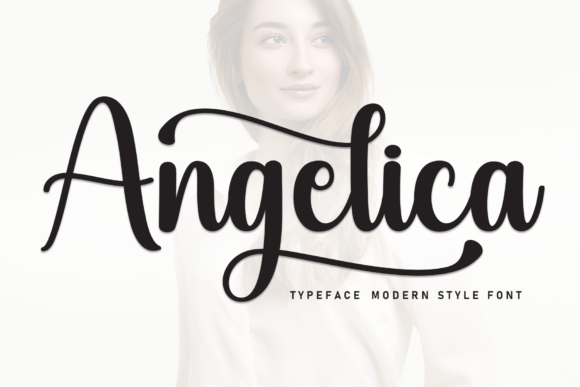
Introducing Angelica Font, the miraculous script font that will captivate your designs with its disarming charm and undeniable elegance. Angelica's enchanting handwritten style dances across the page, inviting readers to immerse themselves in the warmth and playfulness of its every curve.
Angelica is not just a font; it's an artistic expression, a stroke of genius that breathes life into your creative endeavors. Its ethereal form evokes a sense of nostalgia, transporting you to a simpler time when handwritten letters were infused with personality and warmth.
Whether you're crafting digital designs, branding materials, or heartfelt personal messages, Angelica Font will elevate your work to new heights of sophistication. Its timeless appeal ensures that your designs will stand the test of time, leaving an enduring impression on your audience.
With Angelica Font, you'll discover a world of creative possibilities. Its natural and unique style lends itself effortlessly to a myriad of design applications. From eye-catching logos and branding to elegant wedding invitations and heartfelt personal notes, Angelica transforms the ordinary into the extraordinary.
Angelica Font is more than just a collection of characters; it's an expression of your individuality, a reflection of your creative spirit. Let Angelica's whimsical strokes dance across your designs, captivating hearts and leaving an indelible mark on the world.